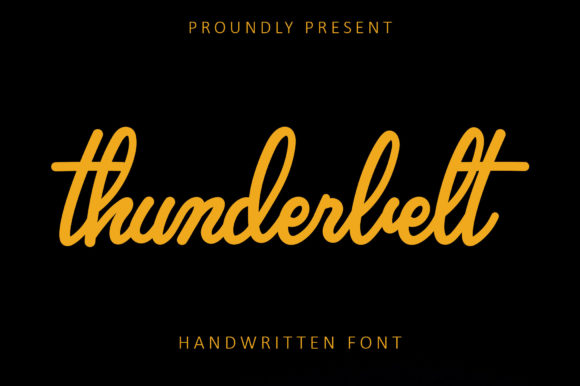
Prepare to be thunderstruck by Thunderbelt, the enchanting script font that will ignite your designs with a captivating touch. This exquisite handwritten creation by amalytype is a symphony of gentle curves and elegant swirls, perfect for adding a touch of warmth and romance to any project.
Picture your book covers adorned with the graceful strokes of Thunderbelt, instantly captivating readers with its alluring charm. Its flowing lines and playful characters will transport them to a world of enchantment and imagination. Unleash your creativity with Thunderbelt and watch as your designs blossom into works of art that leave a lasting impression.
But Thunderbelt's magic extends far beyond book covers. Its versatility knows no bounds, making it an ideal choice for branding, logos, wedding invitations, and any project that calls for a touch of sophistication. Each letter dances across the page, carrying with it a sense of joy and celebration.
Step into a world of endless possibilities with Thunderbelt. Let its whimsical nature inspire you to create designs that evoke emotion and leave a lasting impact. Embrace the power of handwritten elegance and watch as Thunderbelt transforms your designs into captivating masterpieces.